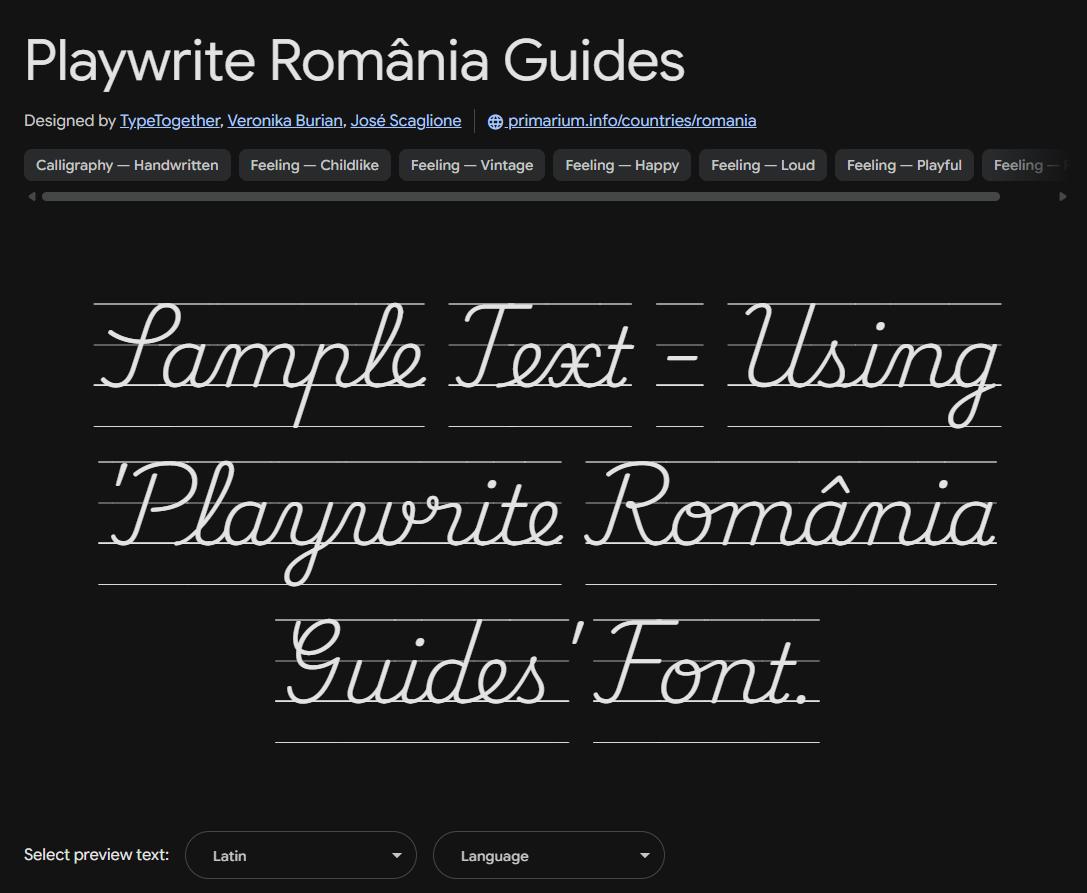
Engineered as a specialized pedagogical instrument by the renowned foundry TypeTogether, Playwrite România Guides represents a sophisticated synthesis of educational typography and cultural specificity, meticulously crafted by designers Veronika Burian and José Scaglione. This single-style typeface functions as a critical scaffold for primary literacy, embedding structural ruling lines directly into the font's vertical metrics to facilitate the mastery of Romanian cursive ductus and character proportions. By integrating precise x-height markers and baseline guides within the glyph architecture, the font leverages advanced typographic engineering to harmonize digital rendering with traditional penmanship standards, ensuring that every ligature and contextual alternate adheres to the rigorous stroke sequencing required by the national curriculum.
The Playwrite România Guides typeface functions as a sophisticated localized pedagogical tool, transforming the traditional cursive model into a digital format that balances the fluid energy of formal calligraphy with a distinctly rugged, handwritten texture. By integrating specialized technical features such as contextual alternates and precise baseline guides, the font evokes a vintage educational aesthetic while maintaining a loud, playful resonance that captures a genuine childlike sense of wonder. This happy architectural construction of the letterforms emphasizes a tactile, hand-crafted feeling, where each glyph reflects the deliberate yet unrefined strokes characteristic of early literacy development. As a vital component of the modern variable font ecosystem, its design optimizes legibility through expressive ascenders and descenders, ensuring that the playful rhythm of its strokes provides a robust and informative framework for contemporary digital penmanship.
Because Playwrite România Guides integrates pedagogical instructional scaffolding directly into its glyph design-specifically through the inclusion of embedded ruling lines and cursive joins modeled on Romanian primary education standards-it is fundamentally unsuitable for high-density corporate documentation or professional legal environments where optical clarity and minimalist aesthetics are required. The calligraphic architecture developed by Veronika Burian and José Scaglione focuses on tactile motor-skill development rather than the neutral neutrality needed for brand identity or complex information architecture, making its use in financial ledgers or digital user interfaces (UI) problematic due to the visual noise of the guides interfering with OCR readability and sub-pixel rendering. Consequently, this typeface should be avoided in any context requiring professional gravitas or high-speed legibility, as its specialized skeletal structure is engineered for the classroom's developmental rhythm rather than the scalable, multi-weight demands of commercial typographic systems.
To align guidelines across multiple lines, you should set the leading or line-height to a fixed value that matches the font's internal vertical metrics. Based on OpenType baseline measurements, maintaining a consistent line-height ratio of 1.2 to 1.5 ensures that the ascender and descender guides remain perfectly parallel without vertical drift.
For young learners developing fine motor skills, a font size between 36pt and 72pt is ideal to ensure the tracing paths are clearly visible. Ergonomic studies in pedagogical typography indicate that a 48pt setting provides the optimal stroke-width-to-counter ratio for standard HB pencil nibs.
You can adjust guideline colors independently by using layered OpenType features or by duplicating the text layer and applying different color values to each. Utilizing the COLR/CPAL tables in modern font files allows for multi-channel rendering where the guide strokes and glyph contours are assigned unique palette indices.
Place the "Regular" version with a low opacity on the bottom layer and stack the "Guides" version directly on top using identical text box coordinates. Perfect registration is achieved when the UPM (Units Per Em) values are identical, allowing for seamless vector alignment across the z-axis in design software.
The font family provides full support for the Romanian alphabet, including the comma-below characters S-comma and T-comma. Extensive character mapping ensures that Unicode slots U+0218 and U+021B are natively rendered with correct anchor points for consistent guideline integration.
Avoid overlapping by increasing the line spacing until the descender guides of the top row do not touch the ascender guides of the row below. Adjusting the OS/2 WinAscent and WinDescent parameters in the CSS or layout engine prevents clipping and ensures a clear white-space buffer between the bounding boxes.
Clean sans-serif fonts like Arial or Helvetica are recommended to provide a neutral contrast to the decorative tracing guidelines. Pairings with a high x-height typeface ensure visual equilibrium and maintain legibility at small optical sizes where the complex tracing guides might become cluttered.
Yes, the font functions well on digital whiteboards as long as the software supports standard font embedding or system-wide font installation. High-resolution rasterization ensures that the Bezier paths of the guidelines remain crisp on 4K interactive displays, preventing aliasing artifacts during stylus interaction.
Applying bold or italic styles will typically distort the guidelines along with the character strokes, which might result in uneven spacing. Real-world stress tests show that synthetic slanting via the font-style property creates a shear transformation that can shift the horizontal guides off the pixel grid.